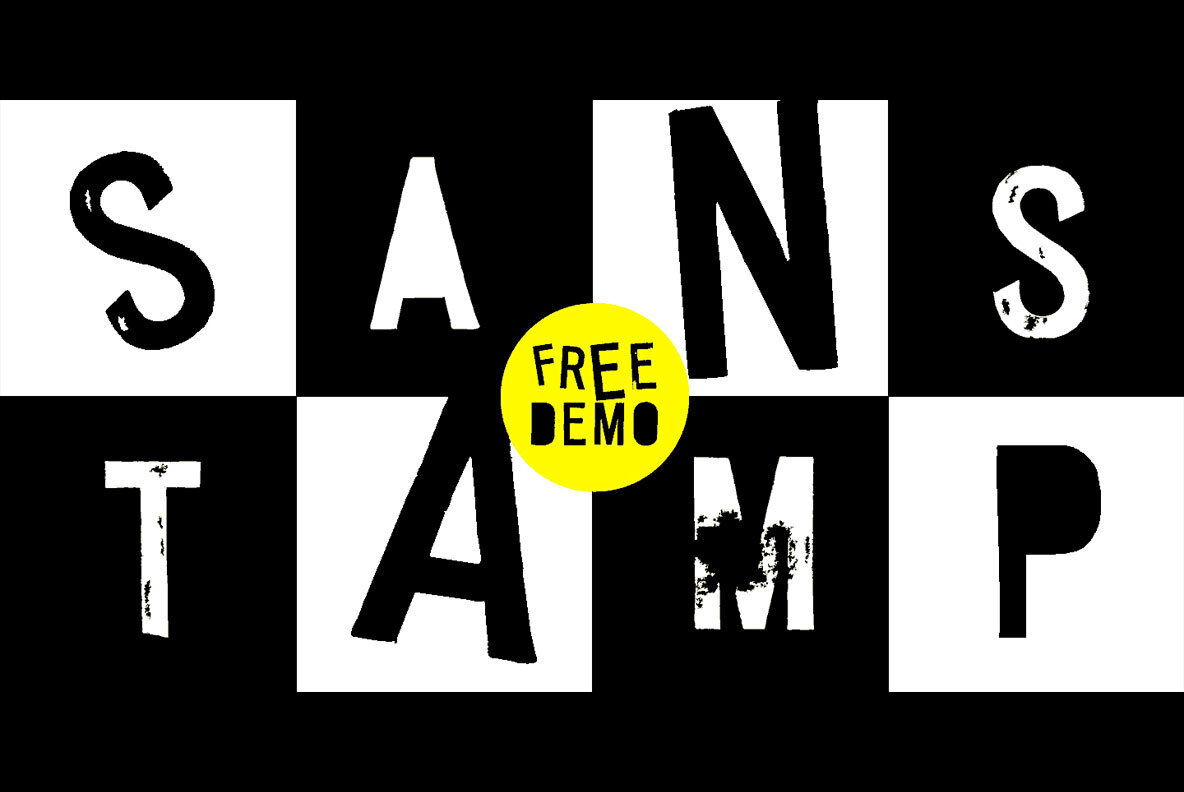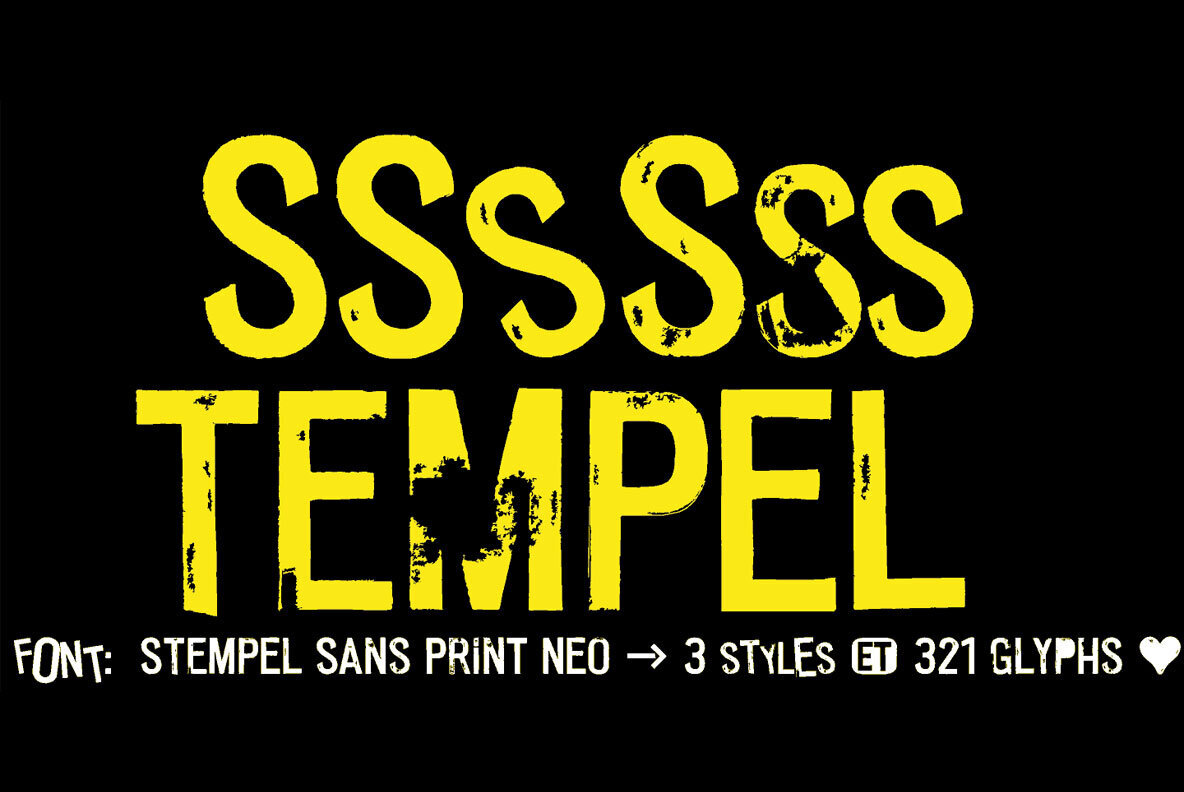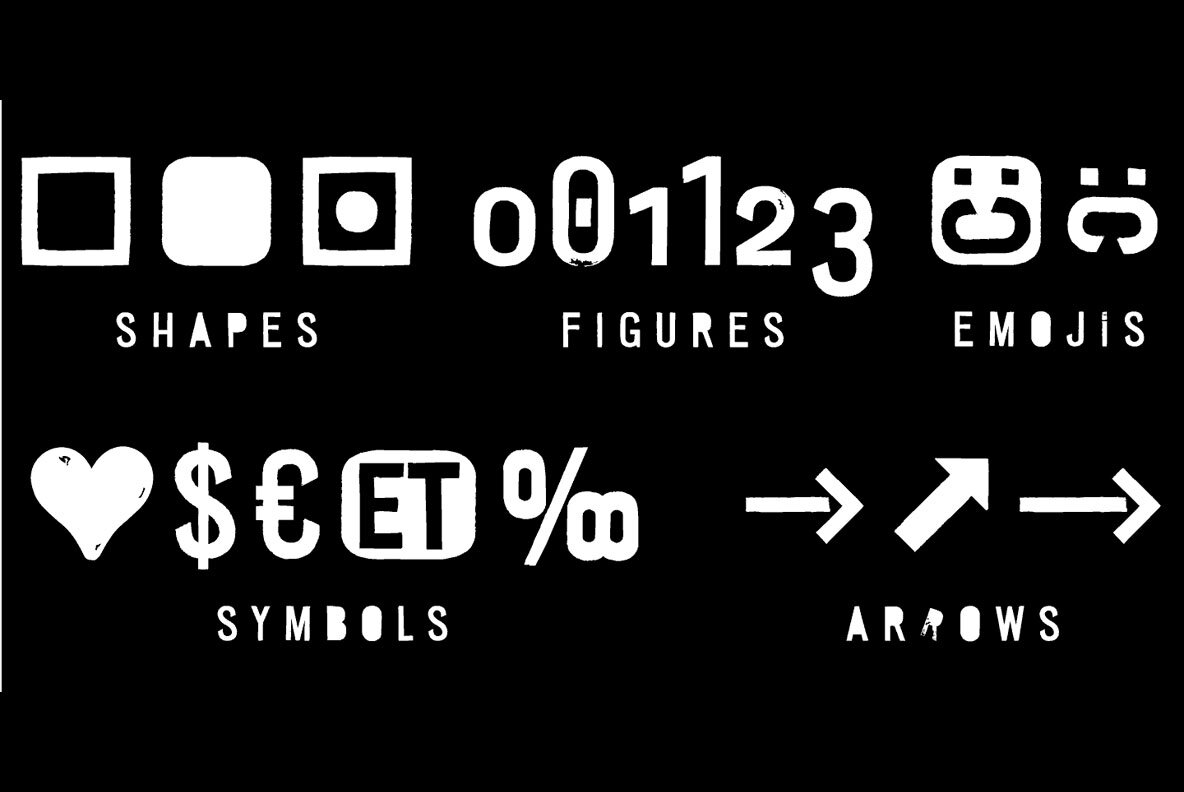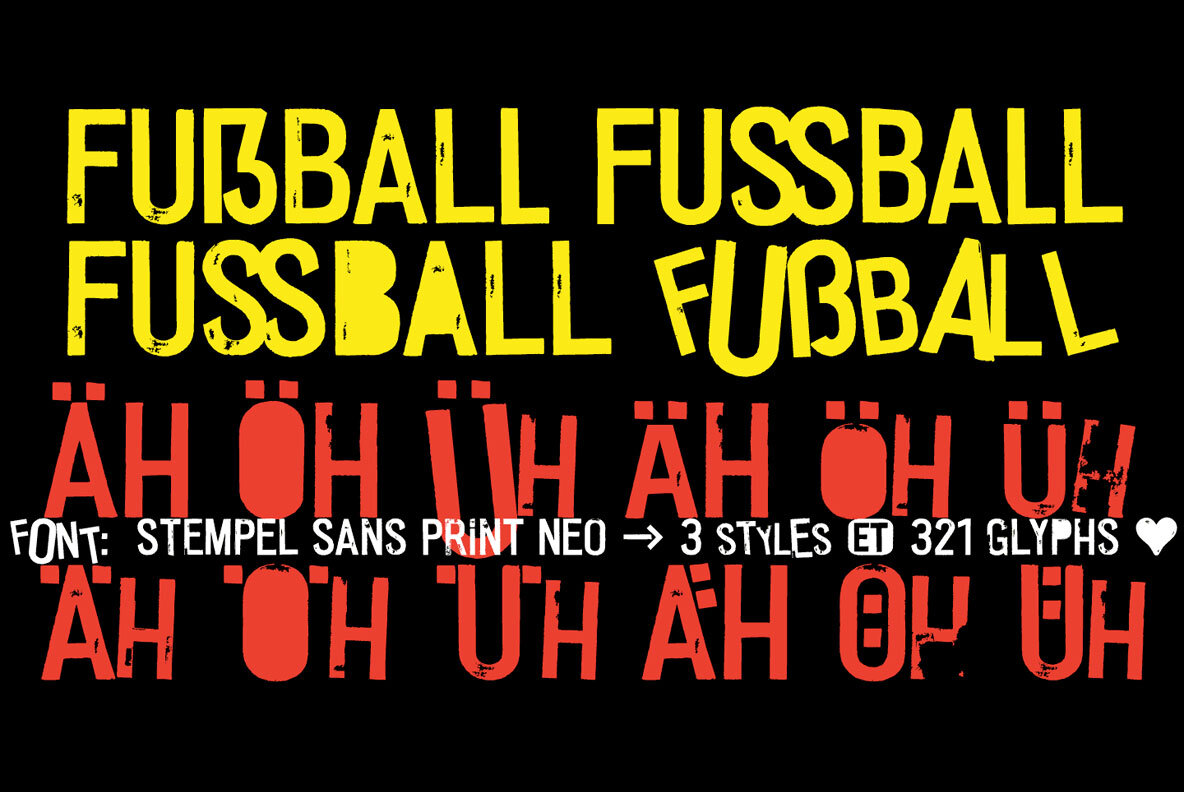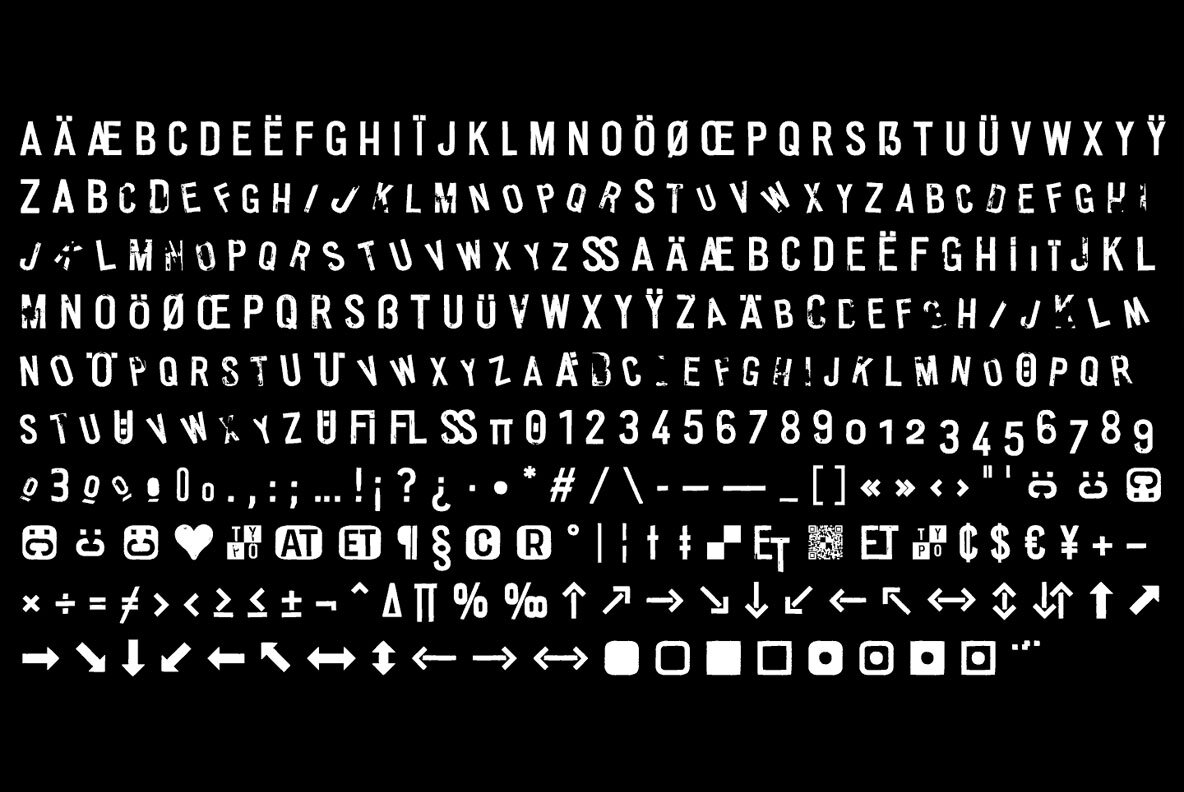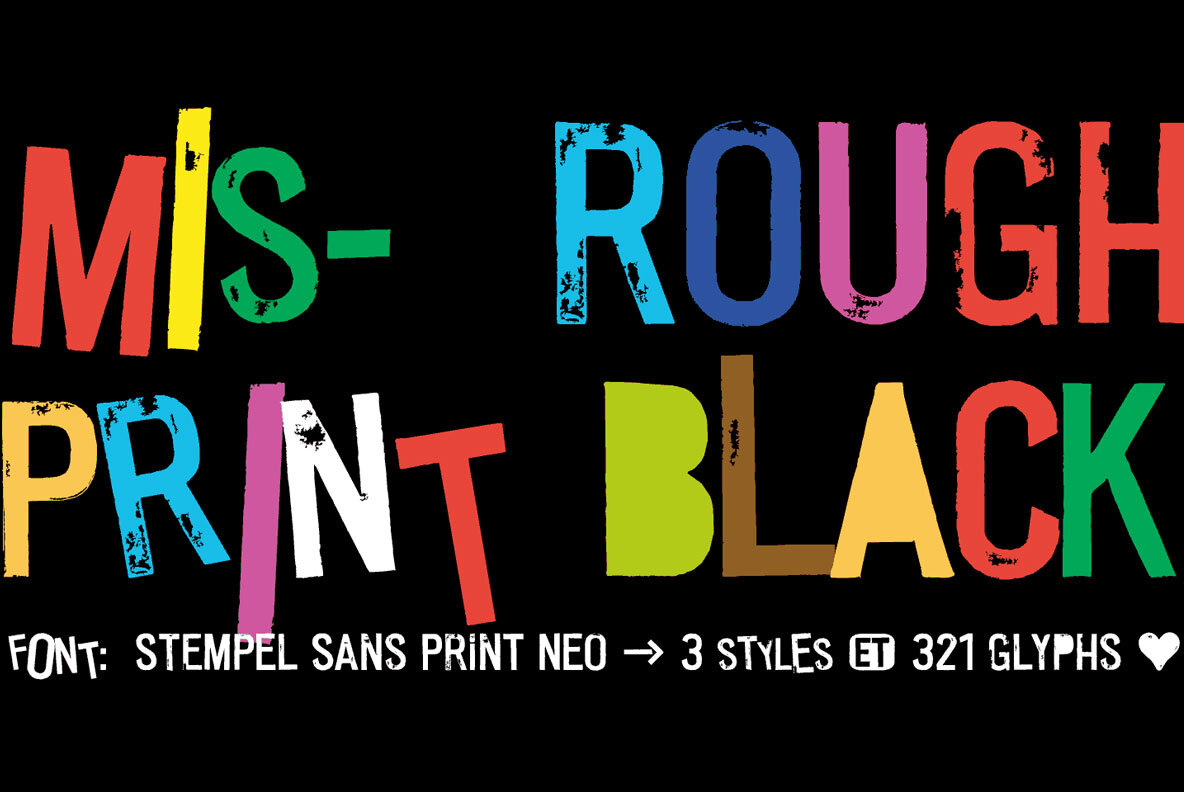
Stempel Font
The typeface Stempel Sans Print Neo is designed from 2022 for the font foundry Typo Graphic Design by Manuel Viergutz.
The display font based on a original set of 29 old rubber stamps (6 cm height). Digitized via hand-stamped, a scanner and Glyphs app.
3 font-styles (Rough, Misprint, Black) with 321 glyphs incl. decorative extras like icons, arrows, dingbats, emojis, symbols, geometric shapes (type the word #LOVE for or #SMILE for as OpenType-Feature dlig) and stylistic alternates (6 stylistic sets).
For use in logos, magazines, posters, advertisement plus as webfont for decorative headlines. The font works best for display size.
■ Font Name: Stempel Sans Print Neo
■ Font Styles: 3 font styles (Rough, Misprint, Black) + DEMO (with reduced glyph-set)
■ Font Category: Display Script for headline size
■ Glyph Set: 321 glyphs (incl. decorative extras)
■ OpenType features (16): aalt calt case ccmp dlig liga lnum onum ss01 ss02 ss03 ss04 ss05 ss06 mark mkmk
■ Design Date: 2022
■ Type Designer: Manuel Viergutz